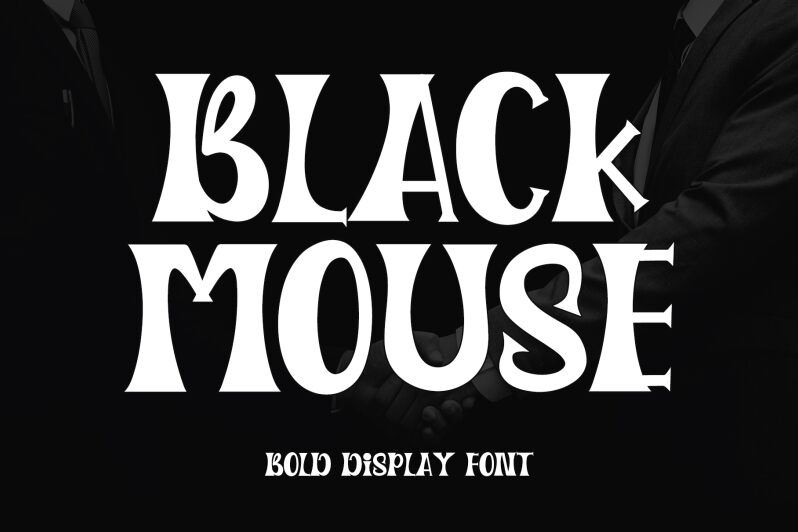
Black Mouse font by Letterafa Studio is an expressive groovy display typeface with bold weight. Artistic swirling letters were crafted in a vintage-influenced style supplying large unrestricted letter curves with ornamental serifs. These take the look of theatrical script elements and give the typeface a decorative handwritten appeal; perfect for short displays and headings.
Use Black Mouse as a free groovy display font suitable for logotypes, poster design, packaging, branding projects, lettering designs, book covers, album covers, advertisements, apparel design including t-shirts and other clothes. Swirling letters may also be used in greeting cards to supply a unique expressionist touch.